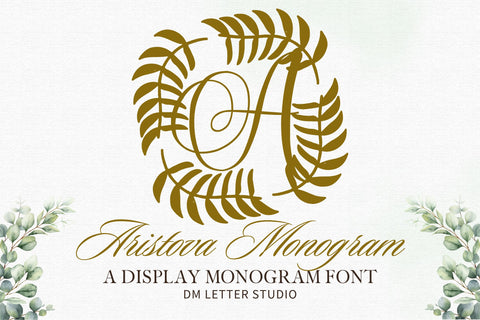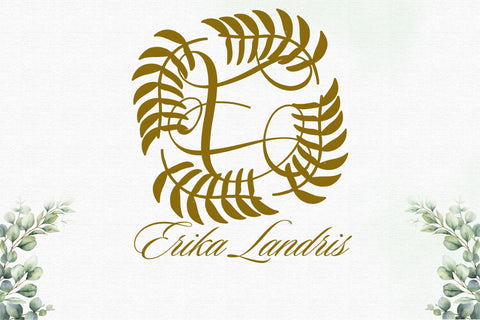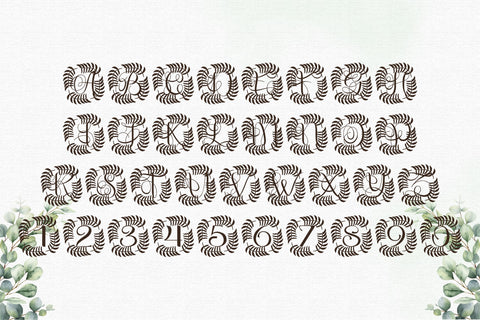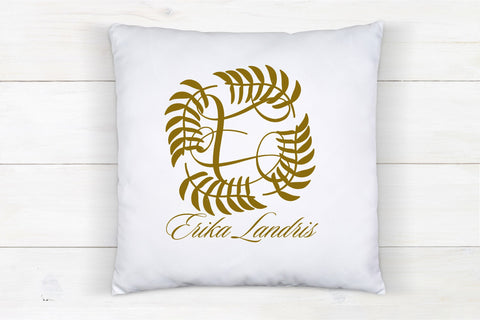
Aristova Monogram – Elegant Serif Monogram Font
Aristova Monogram is a refined serif monogram font designed to embody timeless sophistication. Each uppercase letter is styled with graceful detailing, striking the perfect balance between tradition and modernity. With its polished elegance and versatile design, Aristova Monogram is the perfect choice for weddings, boutique branding, luxury packaging, and personalized stationery.
This typeface is crafted to elevate any project where initials or monograms are the centerpiece. The clean serif structure ensures readability, while the subtle decorative details add a touch of refinement. It works beautifully in logos, invitations, signage, labels, and Cricut/Silhouette crafts, making it suitable for both professional designers and hobbyists. Whether you’re creating a luxury brand identity or a personalized wedding gift, Aristova Monogram helps your designs stand out with class and elegance.
When paired with minimalist layouts or ornate decorative elements, Aristova Monogram adapts beautifully. Its timeless design lends itself well to upscale boutiques, luxury goods, wedding planners, florists, and designers looking to achieve a refined aesthetic.
Elegant Serif Design: Classic uppercase letters styled for monogram applications.
Perfect for Luxury Projects: Great for logos, wedding invitations, packaging, and branding.
Timeless & Versatile: Combines traditional serif structure with graceful decorative touches.
Complete Character Set: A–Z uppercase, numerals, punctuation, and multilingual support.